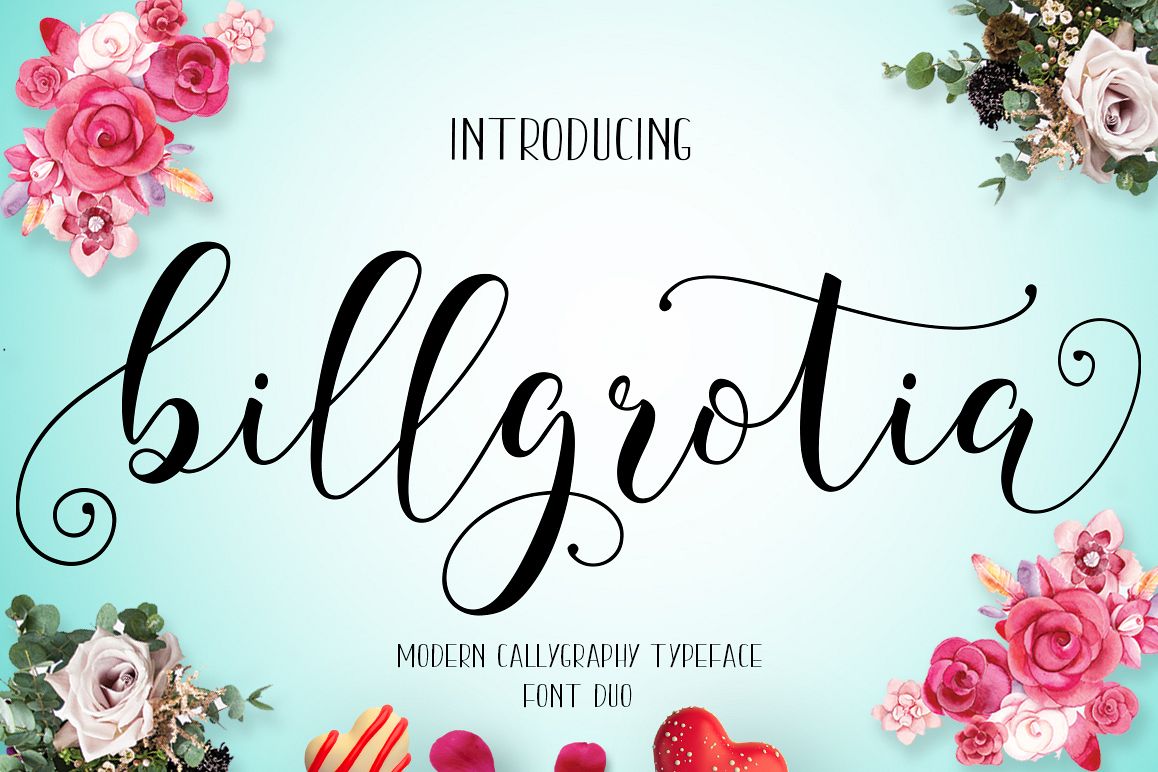
Billgrotia Script
Billgrotia script : A script that is so beautiful
with gorgeous grounds, and furnished with fine lines are perfect for use
many purposes. such as title, signature, logo, correspondence, wedding
invitations, letterhead, signage, labels, newsletters, posters, badges,
Branding, Greeting Cards, etc. It comes with a handy set of OpenType,
Stylistic Alternates, stylistic sets, ligatures and swashes and all to
add an authentic touch to your design. Billgrotia script features 467 glyphs and This is all the code with Unicode PUA -